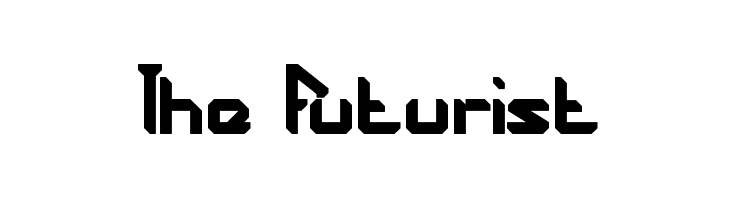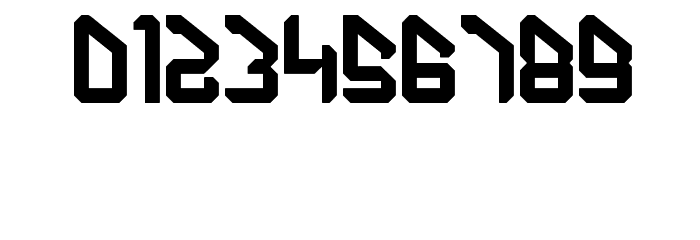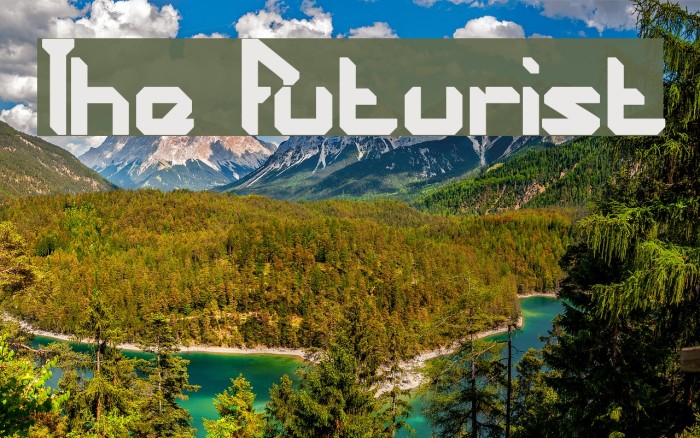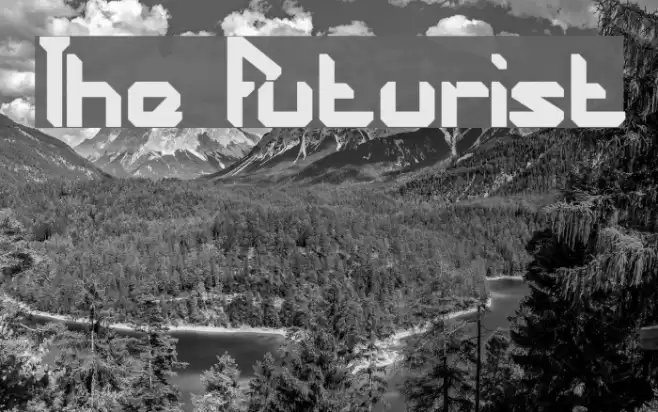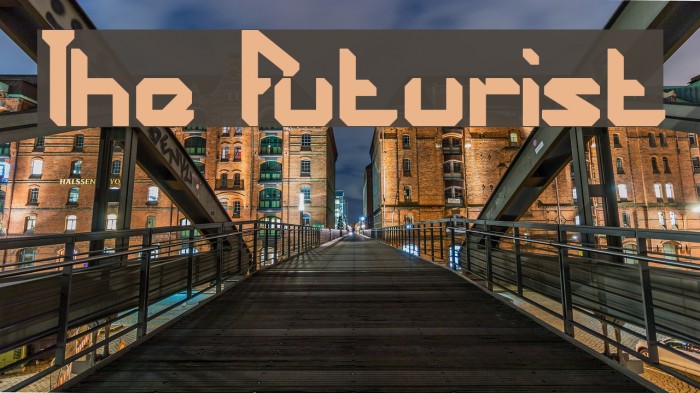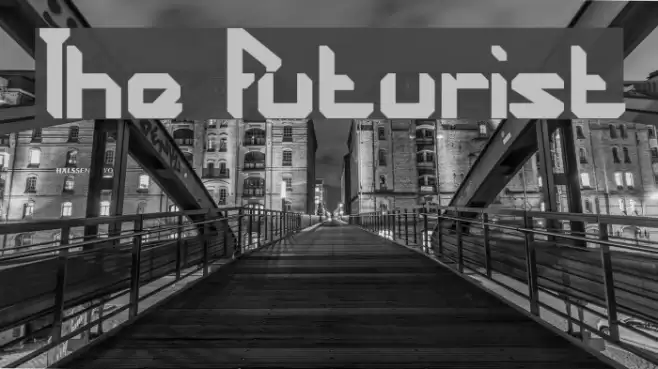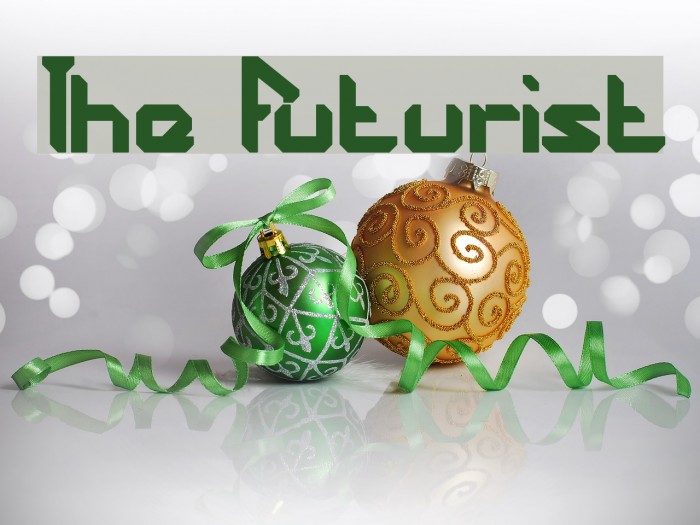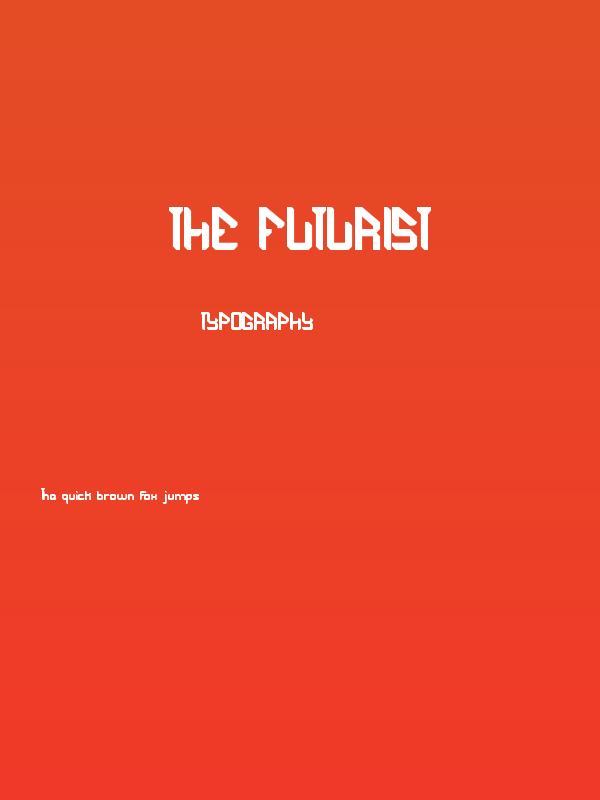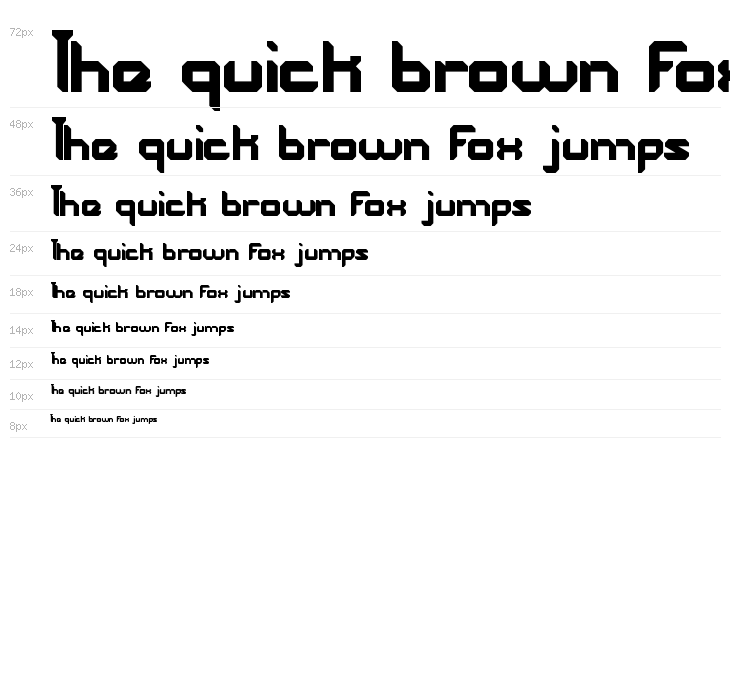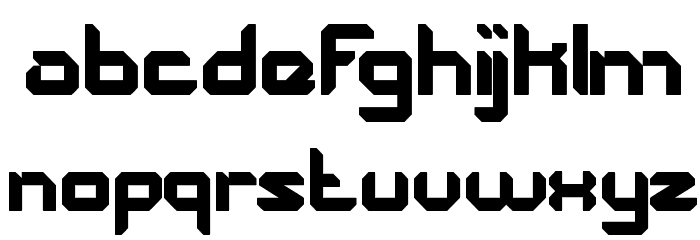
The Futurist Font
The Futurist Description
This font features a bold, geometric design with a futuristic aesthetic. The characters are constructed with sharp angles and straight lines, giving them a distinct, modern appearance. The uppercase and lowercase letters share a consistent style, with a uniform thickness throughout. The numbers and special characters are designed to match the overall angular theme, making the font cohesive and visually striking. Its unique style makes it ideal for projects that require a modern and edgy look.
| Proposed Projects | Ideal for technology branding, sci-fi movie posters, video game titles, and modern art installations. |